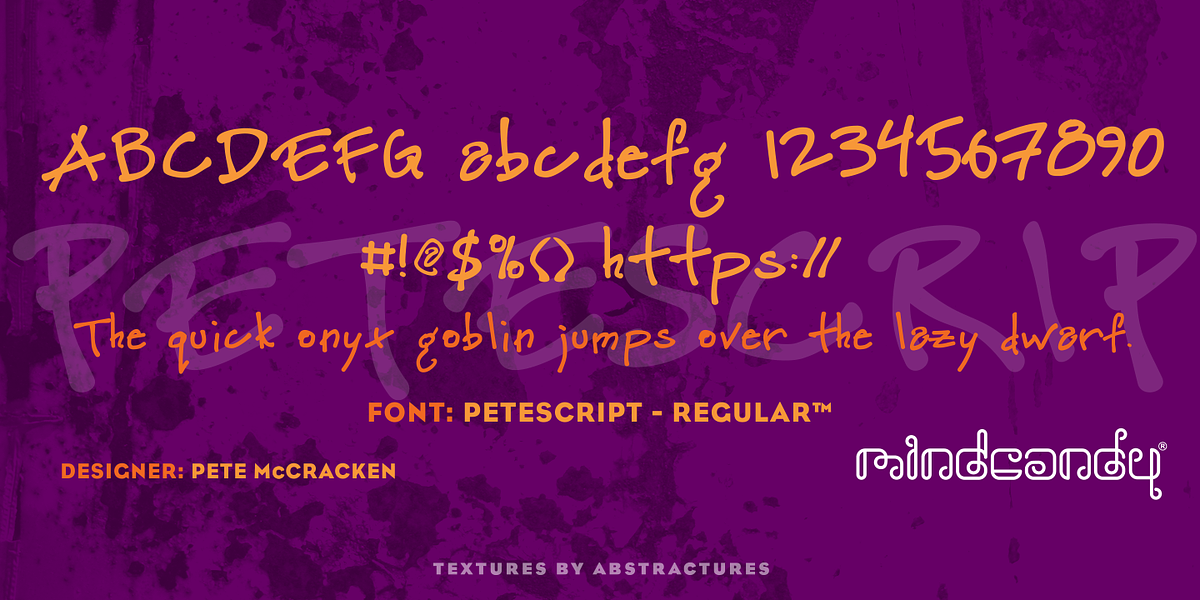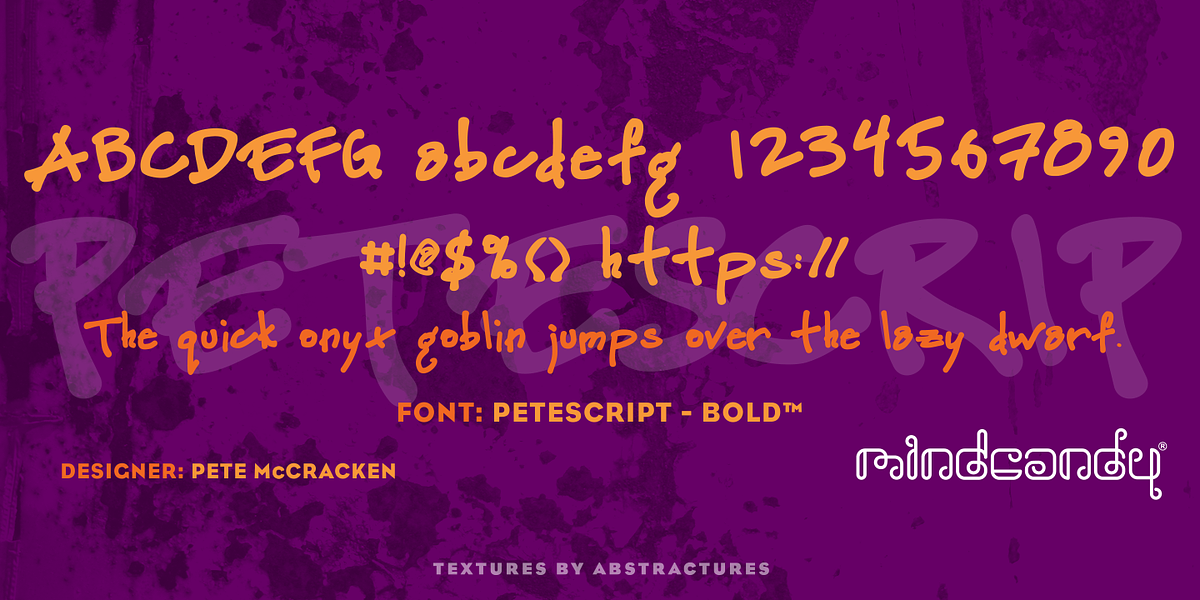
Petescript™
This font is a hand-drawn display typeface designed by Pete McCracken. It's characterized by its playful and friendly aesthetic, making it suitable for applications like headlines, branding, and posters.